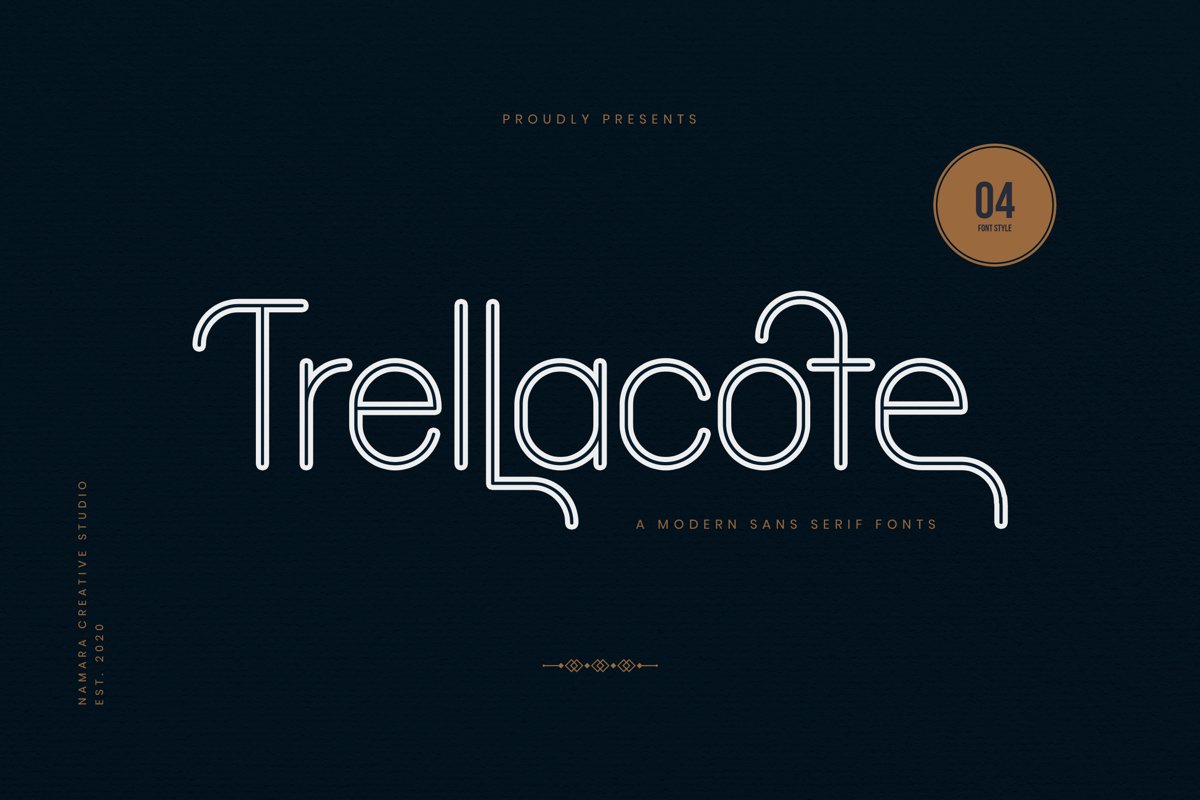
Trellacotte Modern Sans Serif Fonts
Trellacote Light Italic
Trellacote Light
Trellacote Italic
Trellacote
a modern and unique sans serif font with an undeniably clean feel. With its neat and beautiful arrangement of letters, this typeface will look outstanding in both formal and non-formal designs. available in 04 Variant (Light, Light Italic, Regular and Italic). It's Perfect for Header, Poster, Logo, Social Media and many other project with suitable purpose.